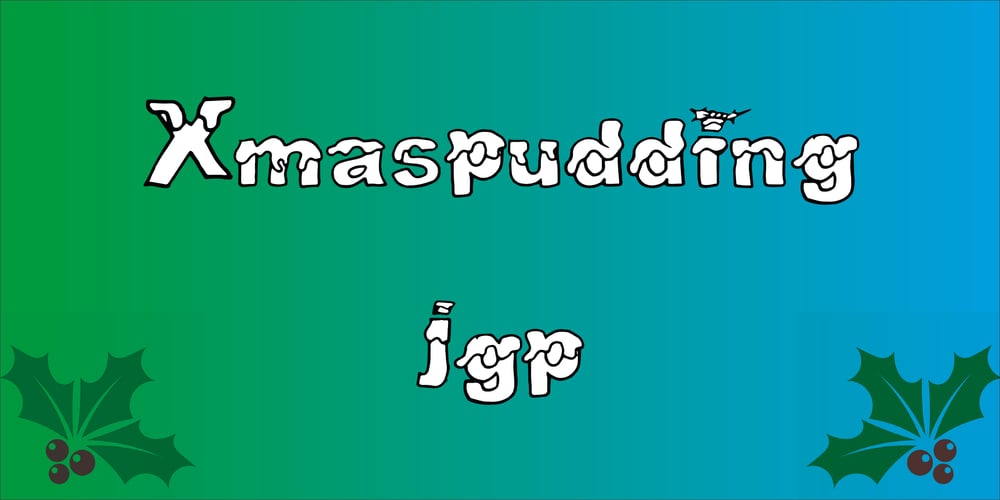
Xmaspuddingjgp Font Family was designed by Jeremy Gill-Praba and published by Jointype. Xmaspuddingjgp contains 1 styles and family package options. This font is based on a Christmas delight of mine which is Christmas pudding.